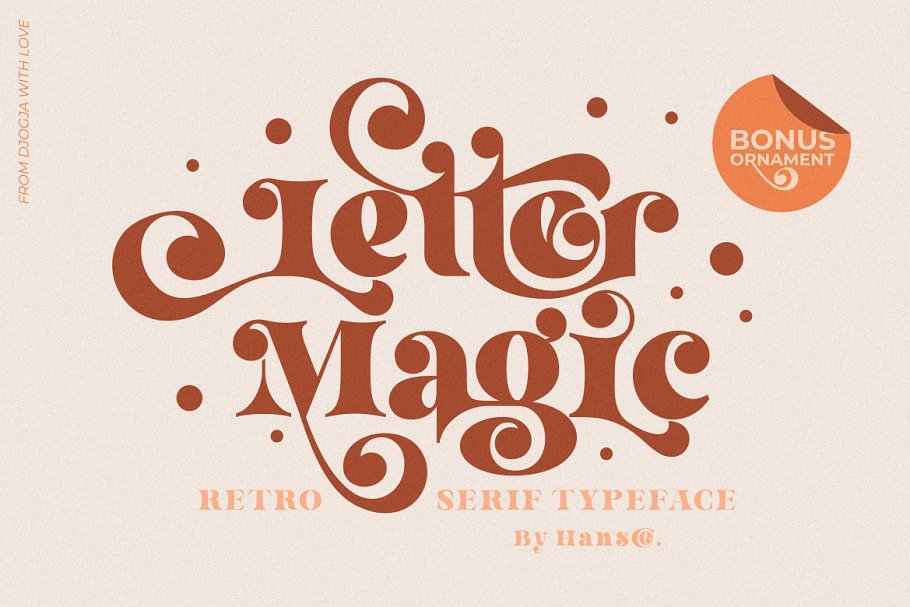
Welcome to the world of Letter Magic, a beautifully crafted Retro Serif font by Burhan Afif. If you're searching for a font that exudes a playful and nostalgic vibe, then Letter Magic is the perfect fit for you. This font family is designed to take your designs to the next level, and it's incredibly versatile.
With Letter Magic, you can effortlessly add a touch of vintage aesthetic to any design idea that you can think of. This font is packed with features that make it incredibly versatile and perfect for your creative ideas. From its unique ligatures, alternates, and swashes, to its PUA encoding, Letter Magic has everything you need to create stunning designs.
One of the best things about Letter Magic is that it is multilingual, which means you can use it to create designs in a variety of languages. It is also easy to access all the glyphs and swashes, making it effortless to customize and create beautiful designs.
In summary, if you want to add a special retro touch to your designs, Letter Magic is the perfect choice. With its beautiful features and unique design, it's no wonder that Letter Magic is a true favorite among designers. Visit Hansco Studio today to get your copy and start creating beautiful designs with Letter Magic!